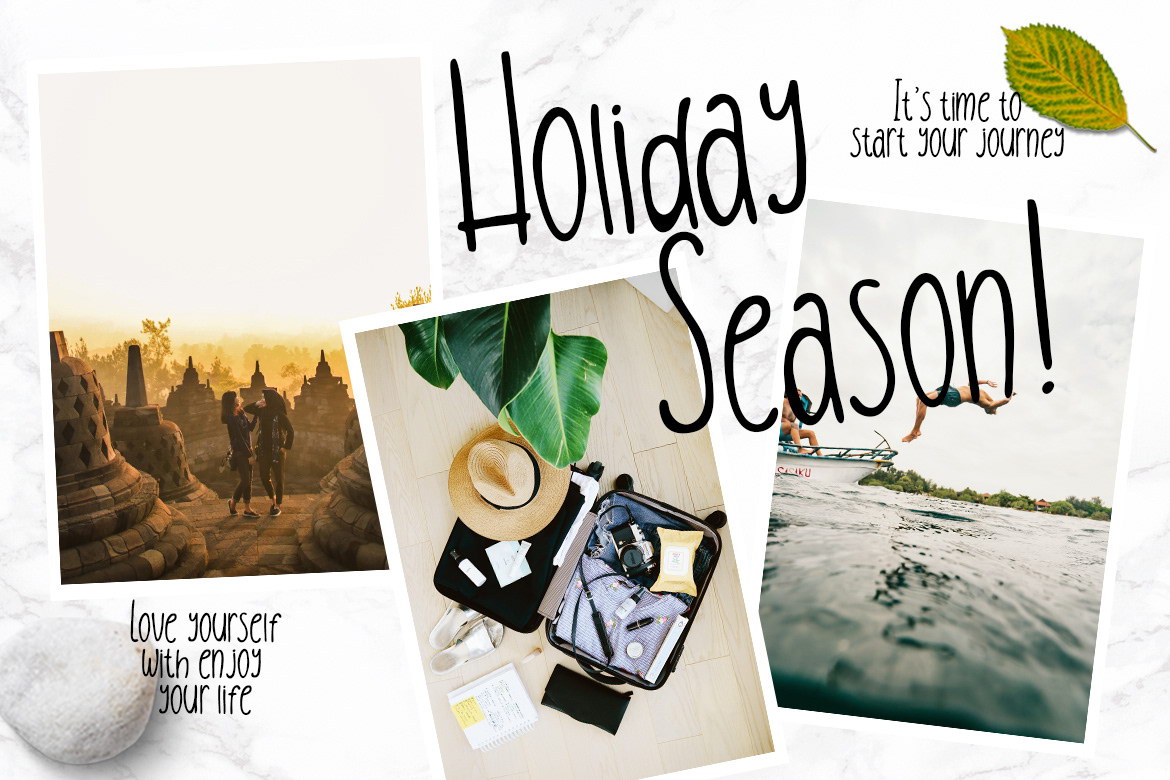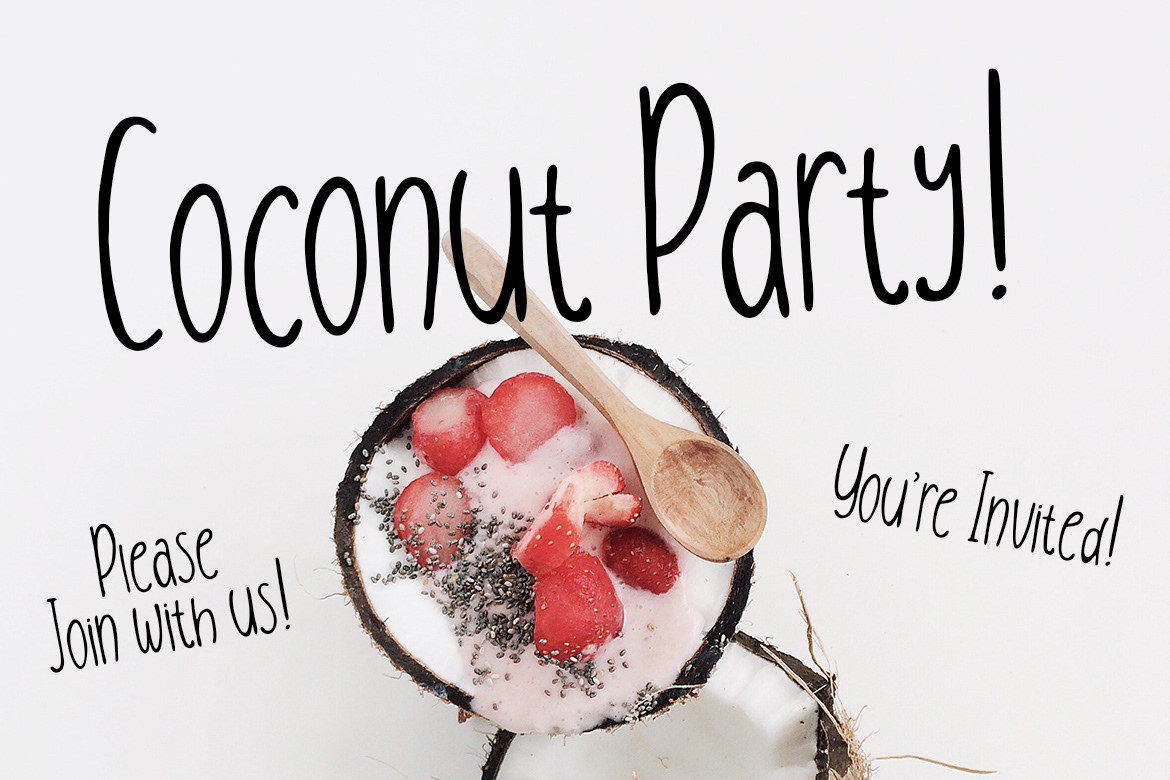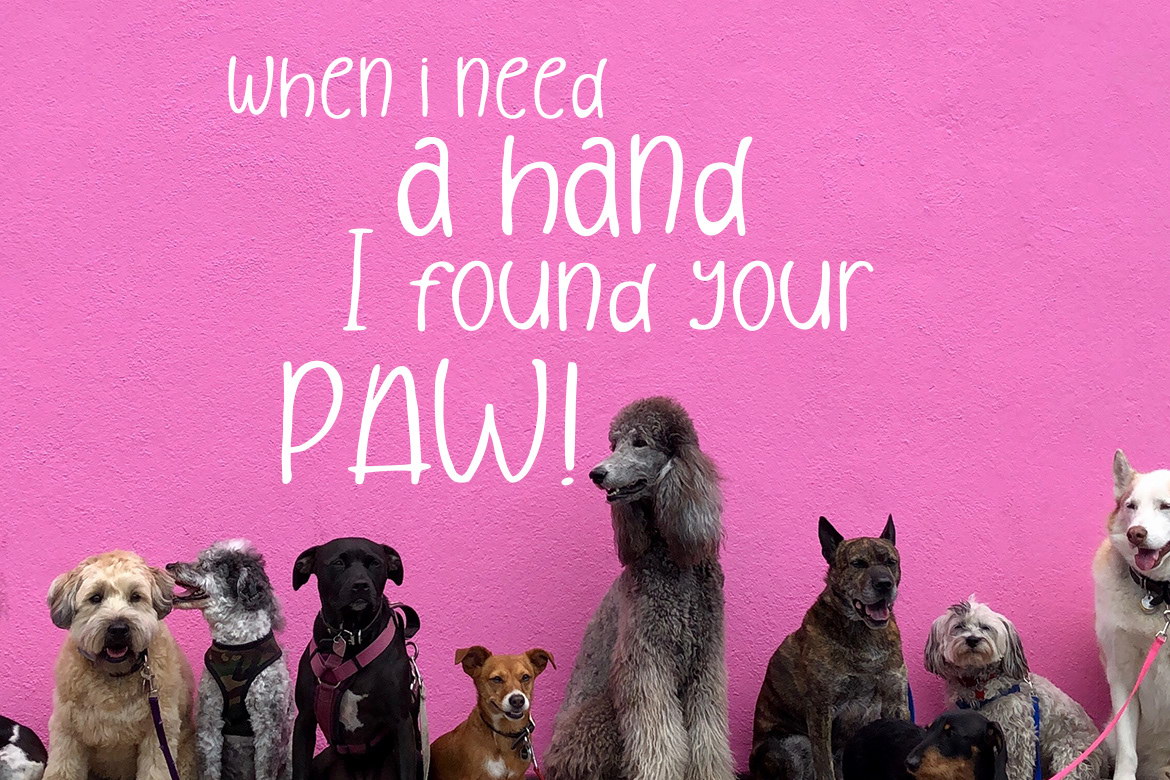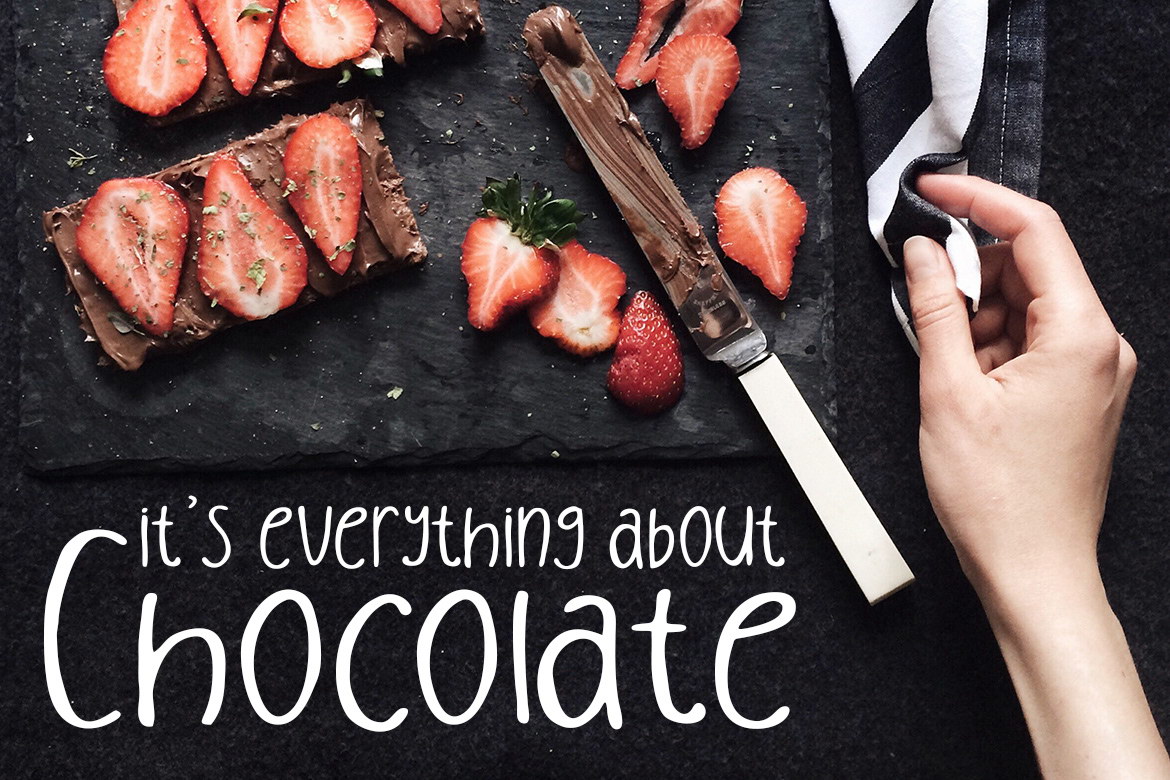
After Sunset is a slender, condensed handwritten font with a tall x-height and playful, irregular strokes that give it a friendly, casual charm. Its narrow letterforms and quirky details make it great for informal branding, invitations, and creative projects where a personal, approachable feel is desired. This font works well in headlines and display uses where a unique, hand-crafted touch is needed without sacrificing readability.
After Sunset Handwritten Condensed Font
About After Sunset Handwritten Condensed Font
| Font family | After Sunset Handwritten Condensed Font |
| Designer | Creatype Studio Co. |